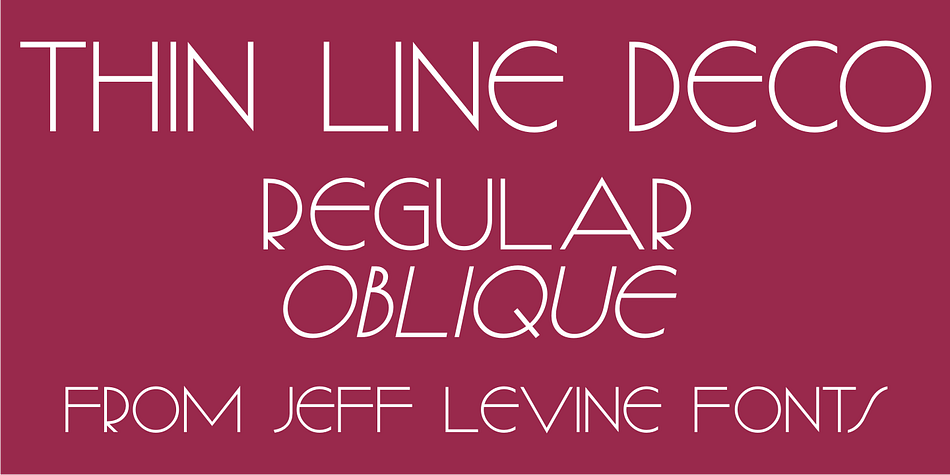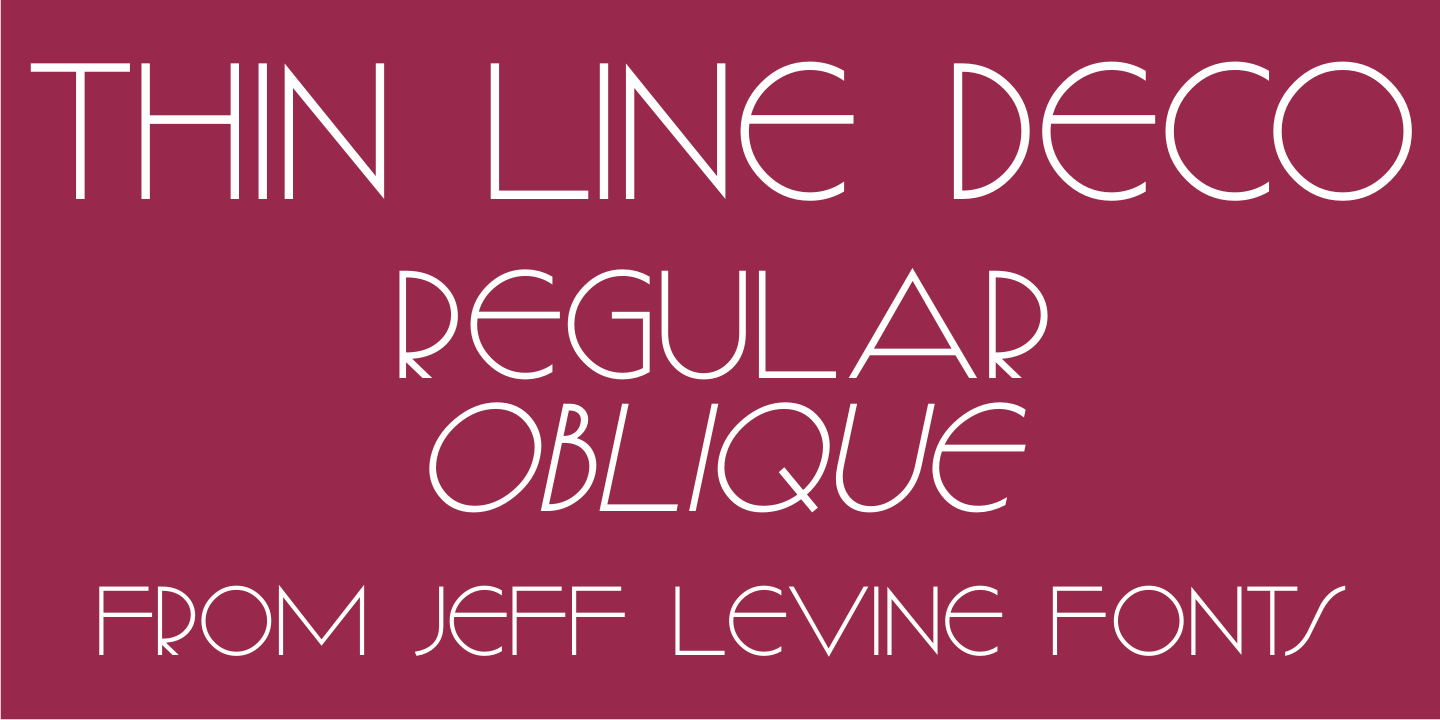
Thin Line Deco JNL is a art deco font family. This typeface has two styles and was published by Jeff Levine Fonts.
The cover of the 1943 sheet music for the song “Jeannie” offered up a hand lettered monoline Deco sans with varying width letterforms. From this design comes the aptly-named Thin Line Deco JNL.